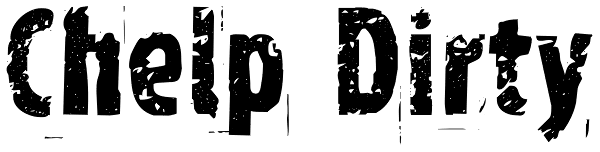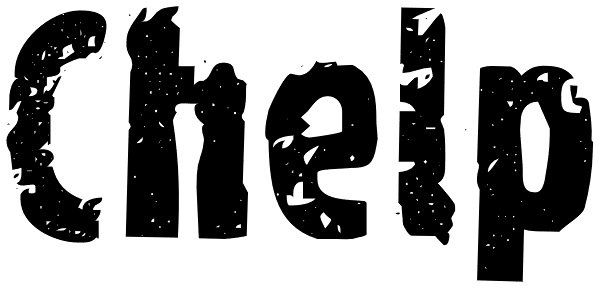
Chelp
Chelp is a grunge display font, in 4 different styles: there's a Regular and All-Caps version, plus a Dirty version which has little bits of overprint like the edge of the stamp has accidentally marked the paper, and a Jumbled version where the...